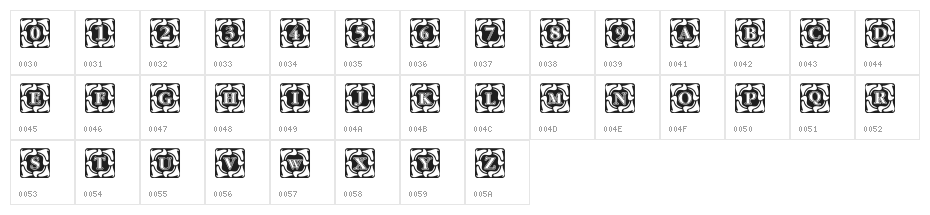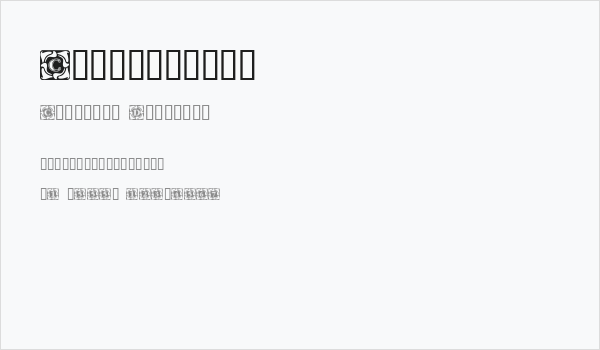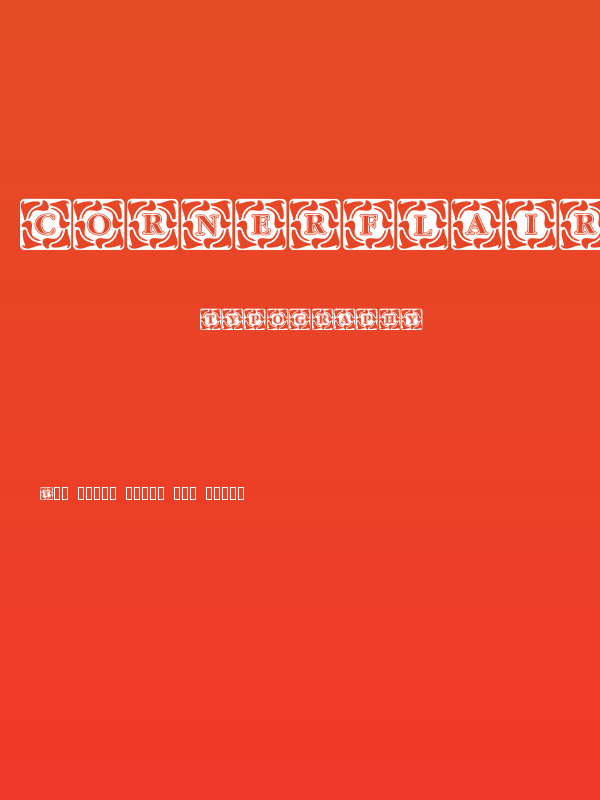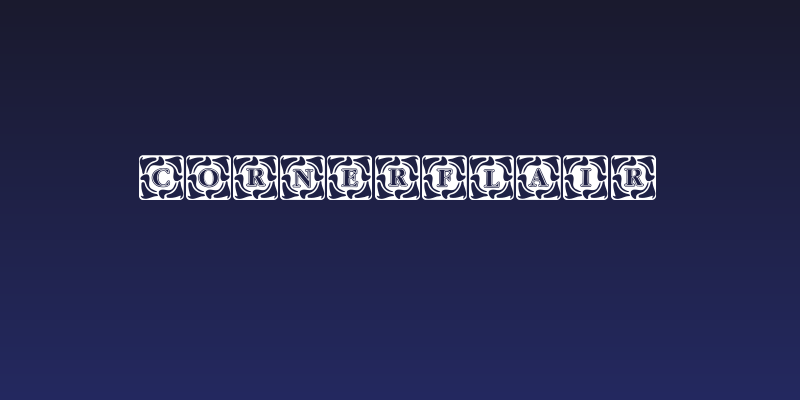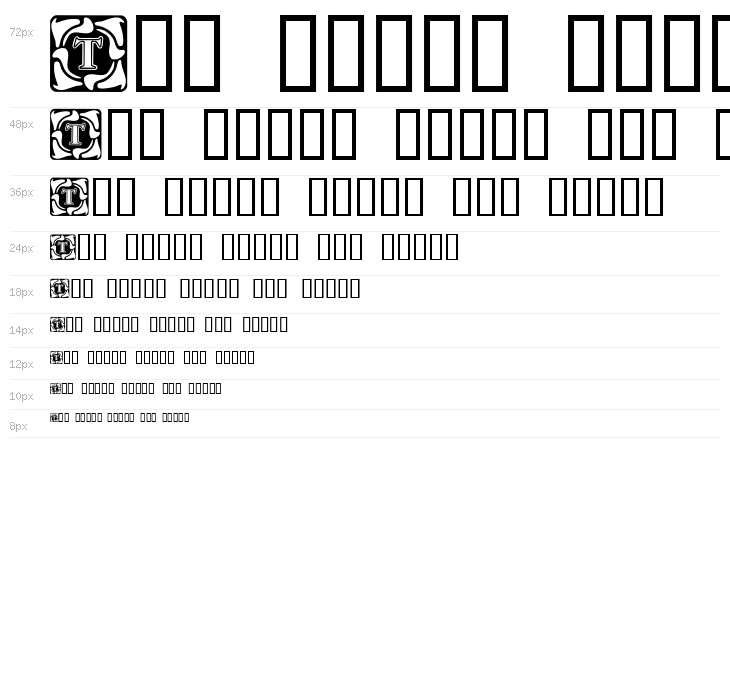
Cornerflair Font
Cornerflair Description
This font features an ornate and decorative style, with each character encased in a square frame adorned with intricate, swirling patterns. The letters are bold and capitalized, emphasizing a sense of grandeur and elegance. The numbers follow the same decorative theme, providing a cohesive look across all characters. The design is reminiscent of vintage or art nouveau styles, making it ideal for projects that require a touch of sophistication and flair.
| Proposed Projects | Ideal for wedding invitations, luxury branding, vintage posters, and decorative signage. |